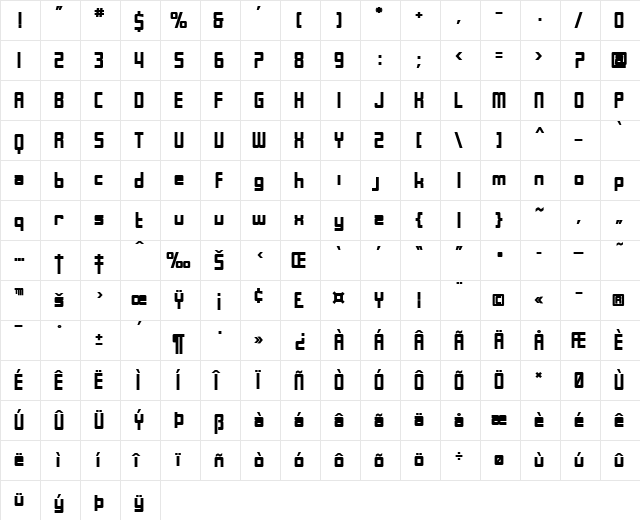
SF Laundromatic Bold
Design Context for SF Laundromatic Typeface
SF Laundromatic offers clean, dependable letterforms without strong stylistic allegiance, making it a practical choice for designers who need flexibility. Its bold stroke weight gives it real presence on the page.